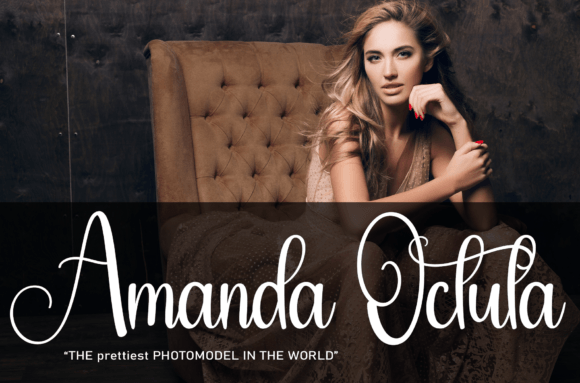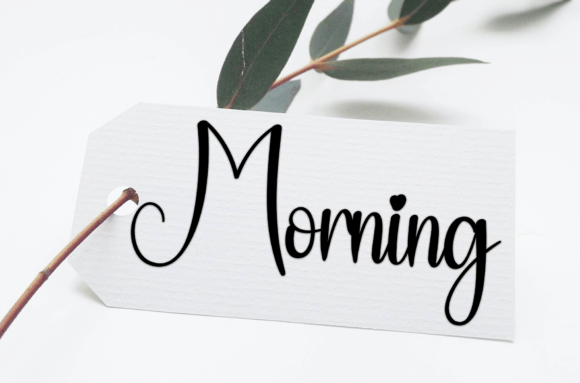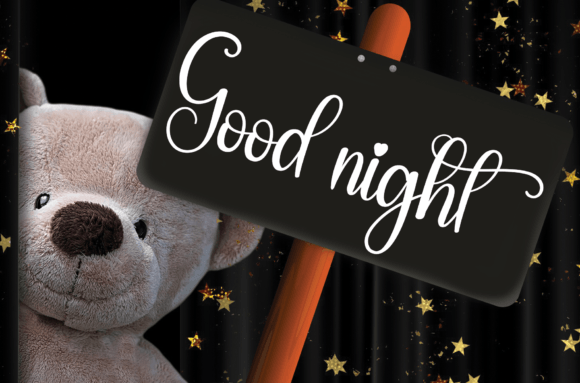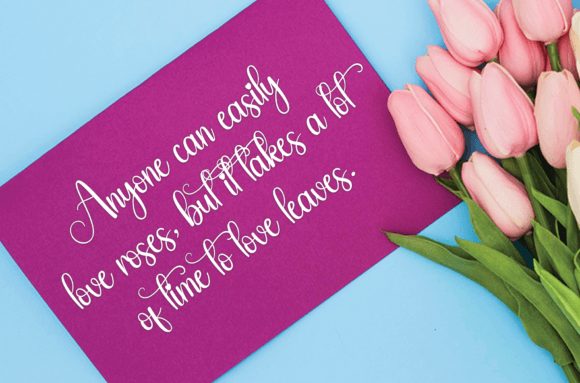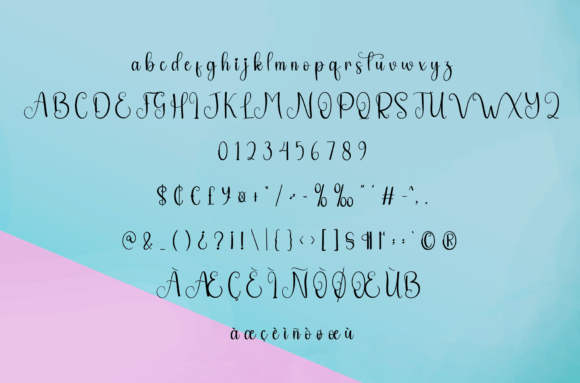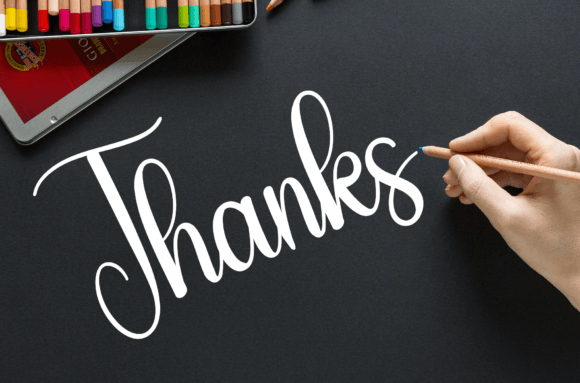
Baby Bunny Font: The Sweetest Handwritten Font for Your Design Needs
Are you a designer or crafter looking for a font that adds a touch of sweetness and whimsy to your designs? Look no further than the Baby Bunny Font! This adorable handwritten font is perfect for creating wedding invitations, greeting cards, and other designs that require a friendly and cute touch.
What is Baby Bunny Font?
Baby Bunny Font is a sweet and charming handwritten font that is designed to bring a smile to your face. Its friendly and approachable style makes it ideal for a wide range of design projects, from wedding invitations and cards to posters and social media graphics.
Key Features of Baby Bunny Font
- Handwritten style: Baby Bunny Font has a beautiful, handwritten style that gives it a personal and unique touch.
- Cute and friendly: The font’s playful and approachable style makes it perfect for designs that require a fun and lighthearted touch.
- Highly legible: Despite its playful style, Baby Bunny Font is highly legible, making it easy to read and understand.
- Versatile: This font can be used for a wide range of design projects, from wedding invitations and cards to posters and social media graphics.
Uses for Baby Bunny Font
Baby Bunny Font is a versatile font that can be used for a wide range of design projects. Here are some ideas to get you started:
- Wedding invitations: Add a touch of sweetness and romance to your wedding invitations with Baby Bunny Font.
- Greeting cards: Create adorable greeting cards for birthdays, holidays, and other special occasions.
- Posters and flyers: Use Baby Bunny Font to create eye-catching posters and flyers for events, promotions, and more.
- Social media graphics: Add a playful touch to your social media graphics, such as Facebook posts and Instagram stories.
- Crafting projects: Use Baby Bunny Font to add a personal touch to your crafting projects, such as scrapbooking and DIY gifts.
Tips for Using Baby Bunny Font
Here are some tips for getting the most out of Baby Bunny Font:
- Pair with other fonts: Experiment with pairing Baby Bunny Font with other fonts to create a unique and interesting look.
- Use in combination with images: Use Baby Bunny Font in combination with images to create a visually appealing design.
- Experiment with colors: Try out different colors and color combinations to add depth and interest to your design.
- Keep it simple: Don’t be afraid to keep your design simple and clean – Baby Bunny Font can stand on its own!
In conclusion, Baby Bunny Font is a sweet and charming handwritten font that is perfect for designers and crafters looking to add a touch of whimsy and fun to their designs. With its friendly and approachable style, high legibility, and versatility, this font is ideal for a wide range of design projects. So why not give Baby Bunny Font a try and see how it can add a touch of sweetness to your designs?